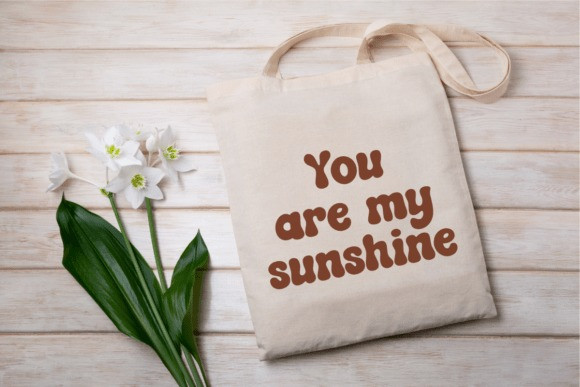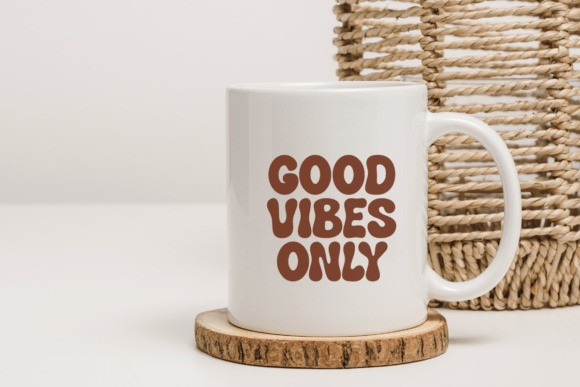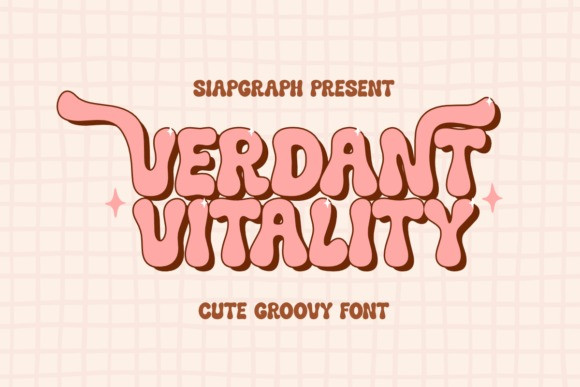
Verdant Vitality Font
Verdant Vitality Font a retro-inspired font brimming with classic allure and whimsical sophistication. Verdant Vitality stands out with its unique personality and adaptability, adding a touch of individuality to a wide range of creative projects. It’s the ideal choice for distinctive logos, funky stickers, insightful headlines, captivating brand narratives, and standout apparel designs.
This versatile font effortlessly enhances every creative exploration, whether it’s for print media like posters, magazines, books, or digital platforms. Verdant Vitality is an embodiment of celebration, perfectly capturing the spirit of various themes and occasions. From the rejuvenating spirit of New Year to the romantic pulse of Valentine’s Day, the adrenaline-driven charm of the Super Bowl, or the mesmerizing beauty of Mardi Gras – this font is bound to leave a lasting impression.